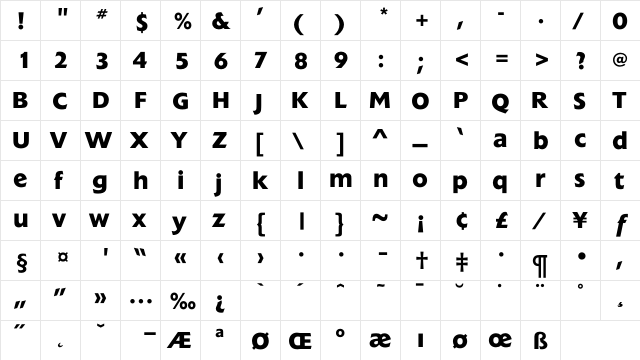
ExtensionBold Regular
Design Context for ExtensionBold Typeface
ExtensionBold is a composed and adaptable typeface that performs quietly and consistently across a wide range of design contexts. Its bold stroke weight gives it real presence on the page.
Pro Tip: Use ExtensionBold in both headline and body roles to test its range before committing to a single application.